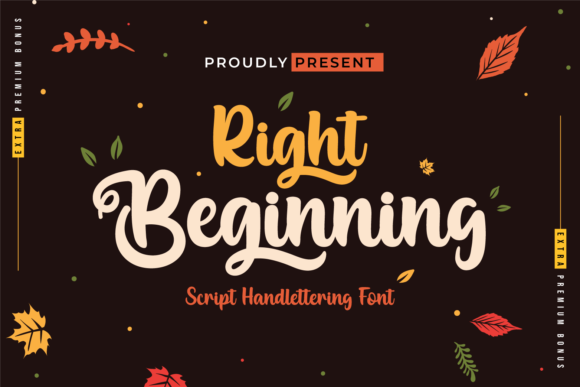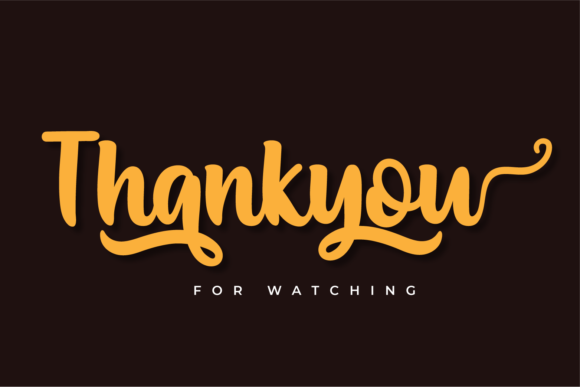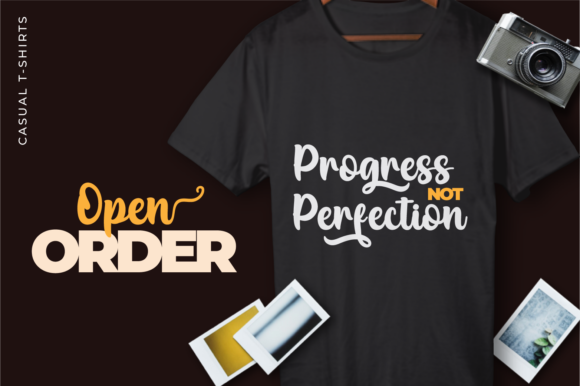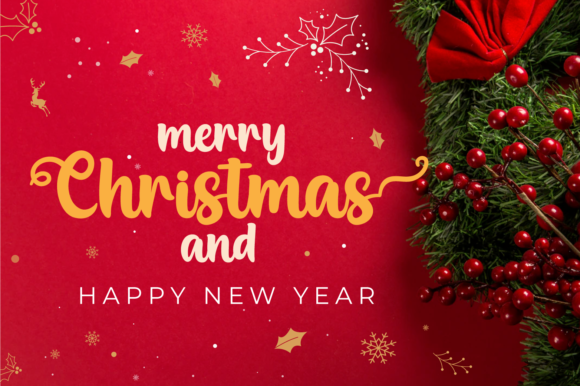
Right Beginning Font
About Right Beginning Font
Right Beginning is an adorable handwritten font. It features a timeless and stylish styles that makes it perfect for a wide variety of projects! It has cute ligatures and swashes that will add a great touch to your designs!